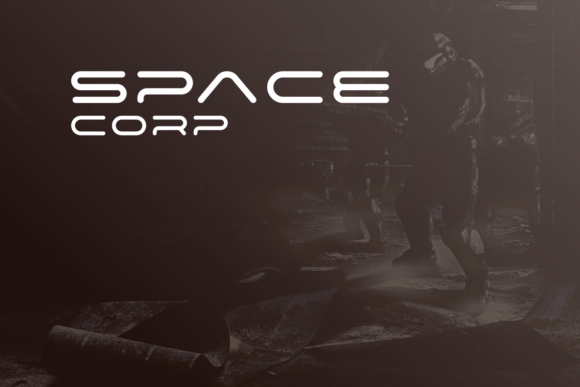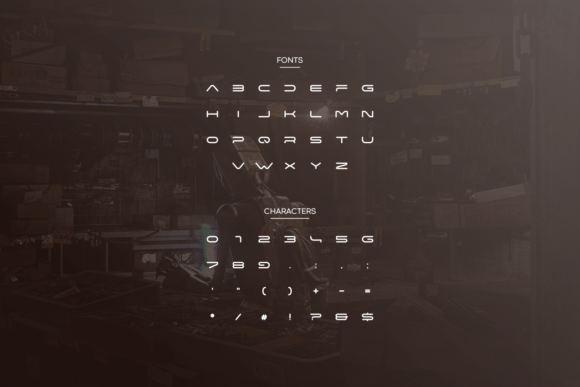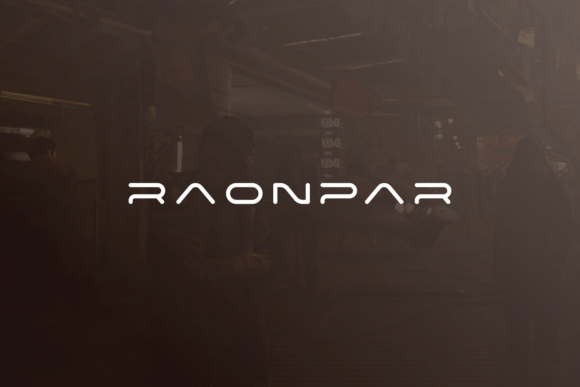
Introduction to Pondar Font
Have you ever been working on a creative project and struggled to find the perfect font to elevate your design? You know, that moment when everything seems just right, but that one element is missing? It’s a feeling we’ve all experienced as designers. For me, it was a branding project that required a font that exuded elegance and sophistication. After hours of searching, I stumbled upon Pondar Font – a game-changer that instantly transformed my design.
Pondar Font is a high-quality design resource that has quickly become a staple in my creative arsenal. Its smooth angular shape and modern aesthetic make it perfect for headlines, branding, and logo designs. With a transparent background, this versatile font can be easily customized to fit any design style. Whether you’re working on a personal project or a high-profile campaign, Pondar Font is sure to deliver.
Key Features of Pondar Font
- High-quality design resource suitable for various creative projects, including digital art, graphics, and typography.
- Includes a wide range of glyphs, making it an ideal choice for multilingual designs and creative projects.
- Offers a unique, modern aesthetic with clean lines and geometric shapes, perfect for contemporary design applications.
Honest Review: Pondar Font
I recently had the chance to work with the Pondar Font in one of my creative projects and I must say it’s a great addition to any designer’s toolkit. This font is a high-quality design resource that can elevate your work to the next level.
One of the standout features of Pondar Font is its versatility. It comes in a range of styles and weights, making it perfect for various creative projects. The font is also available for free download, which is a huge bonus for designers on a budget.
- ✨ High-quality design: The Pondar Font is designed with precision and attention to detail, making it perfect for any design project.
- ✨ Transparent background: This feature allows you to easily overlay the font on any background, giving you complete control over the design.
- ⚠️ Limited customization options: While the font is versatile, it’s not customizable, which might be a limitation for designers who like to tweak their fonts to fit their specific needs.
Overall, I’m impressed with the Pondar Font. It’s a great addition to any design resource library and is perfect for designers who are looking for a high-quality font that’s easy to use.
The Pondar Font is ideal for creative projects that require a unique and stylish font. It’s perfect for designing logos, posters, and other marketing materials. You can also use it for personal projects such as wedding invitations or business cards.
Tips for Getting the Most Out of Pondar Font
To get the most out of Pondar Font, experiment with different font sizes, colors, and combinations. You can also pair it with other fonts to create a unique and eye-catching design. Don’t be afraid to try new things and push the boundaries of what’s possible with this versatile font.